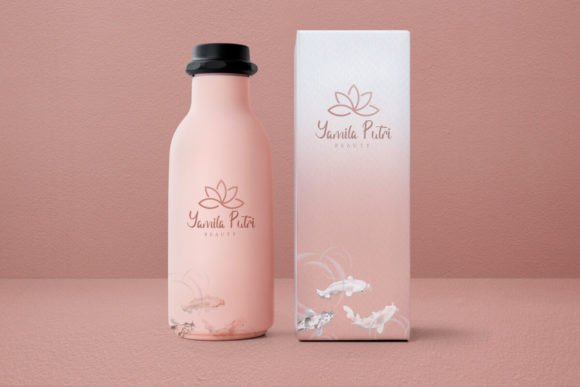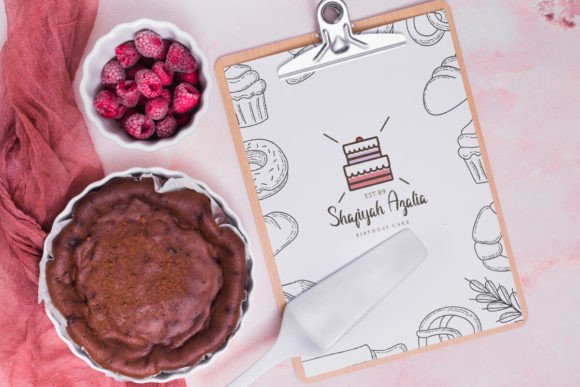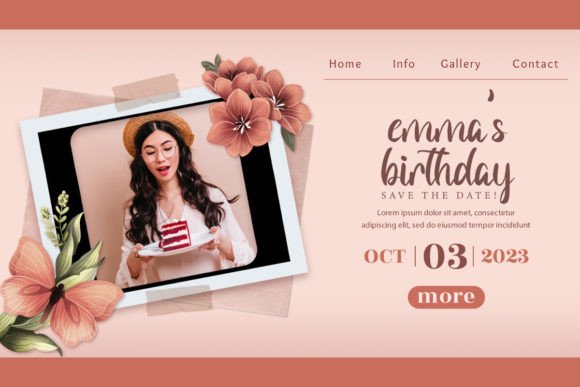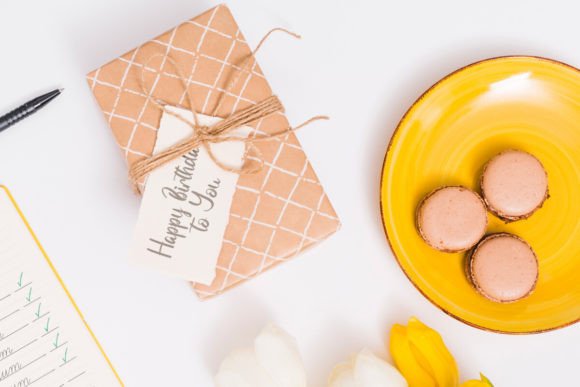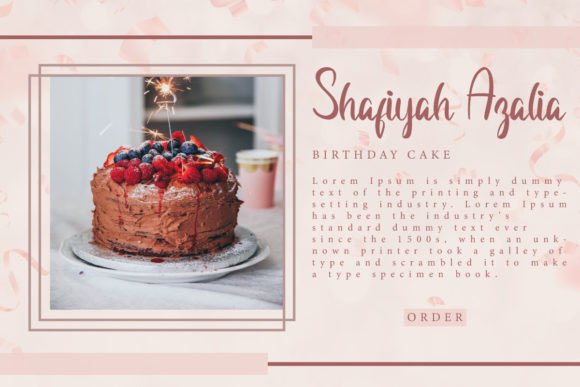
Introducing Birthday Present Font: The Ultimate Celebration Typo
Are you tired of using the same old fonts for your designs? Do you want to add a touch of festivity and joy to your creations? Look no further than Birthday Present Font, a cheerful yet simple hand-brush script font that’s perfect for any celebration. In this article, we’ll dive into the world of Birthday Present Font and explore its features, uses, and benefits for designers and crafters.
A Font that Celebrates Life’s Special Moments
Birthday Present Font is a beautifully crafted typography that’s inspired by the magic of birthday parties. With its hand-brush script style, this font exudes a sense of warmth, happiness, and playfulness, making it perfect for designs that require a personal touch. Whether you’re creating invitations, greeting cards, or social media posts, Birthday Present Font is sure to bring a smile to your audience’s faces.
A Versatile Font for Various Industries
One of the best things about Birthday Present Font is its versatility. This font has been refined to fit a wide range of industries, including:
- Accessories
- Bakeries
- Party equipment stores
- Cake shops
- Cosmetics
- Craft
- Event organizer
- Furniture
- Gift stores
- Homeware
- Interior designers
- Printing
- Publishing
- Restaurants
- Skincare
- Spa
Whether you’re a designer, crafty DIY enthusiast, or business owner, Birthday Present Font is an excellent choice for your creative projects.
Key Features of Birthday Present Font
So, what makes Birthday Present Font so special? Here are some of its key features:
- Hand-brush script style for a personal touch
- Cheerful and playful vibe perfect for celebrations
- Simple and easy to read
- Versatile and adaptable to various industries
- Refined to fit a wide range of design applications
How to Use Birthday Present Font in Your Designs
Using Birthday Present Font in your designs is easy and fun. Here are some ideas to get you started:
- Create custom birthday party invitations that set the tone for an unforgettable celebration
- Design eye-catching social media posts for bakeries, gift stores, or restaurants
- Make personalized greeting cards for special occasions
- Develop branding materials, such as logos, brochures, or business cards, that showcase your brand’s personality
- Use it for crafting, scrapbooking, or DIY projects that require a touch of whimsy
Benefits of Using Birthday Present Font
So, why choose Birthday Present Font for your designs? Here are some benefits you can expect:
- Add a touch of festivity and joy to your designs
- Stand out from the crowd with a unique and playful font
- Convey a sense of warmth and personality in your designs
- Increase engagement and interaction with your audience
- Save time and effort with a font that’s easy to use and versatile